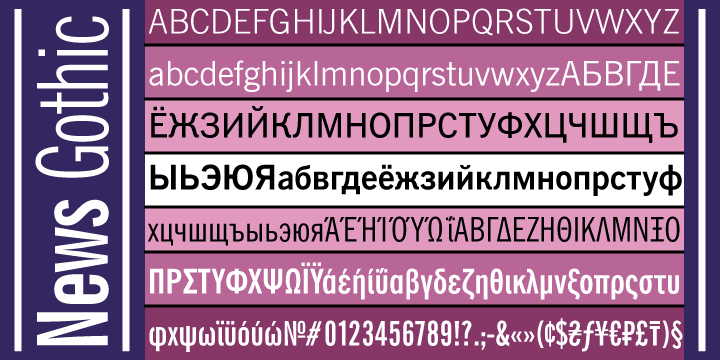
The main digital type foundry in Russia. ParaType was established as a font department of ParaGraph International in 1989 in Moscow, Russia. At that time in the Soviet Union, all typeface development was concentrated in a state research institute, Polygraphmash. It had the most complete collection of Cyrillic typefaces, which included revivals of Cyrillic typefaces developed by the Berthold and Lehmann type foundries established at the end of 19th century in St. Petersburg, and artwork from Vadim Lazurski, Galina Bannikova, Nikolay Kudryashov and other masters of type and graphic design of Soviet time. ParaType became the first privately-owned type foundry in many years. A license agreement with Polygraphmash allows ParaType to manufacture and distribute their typefaces. Most of Polygraphmash staff designers soon moved to ParaType. In the beginning of 1998, ParaType was separated from the parent company and inherited typefaces and font software from ParaGraph. The company was directed by Emil Yakupov until February 2014. After Yakupov's death, Irina Petrova took over the reins. Products include FastFont, a simple TrueType builder, ParaNoise, a builder for PostScript fonts with random contours, FontLab, a universal font editor and ScanFont, a font editor with scanning module. Random, customized fonts. Multilingual fonts including, Latin, Cyrillic, Arabic, Greek, Georgian and Hebrew fonts for Macintosh and Windows. Catalog. Designers. Alternate URL. Famous typefaces by Paratype include Academy, Pragmatica, Newton, Courier, Futura, Petersburg, Jakob, Kuenstler 480, ITC Studio Script, ITC Zapf Chancery, Amore CTT (2004, Fridman), Karolla, Inform, Hafiz (Arabic), Kolheti (Georgian), Benzion (Hebrew). The PT Sans (Open Font Library link), PT Serif and PT Mono families (2009-2012) are free. PT stands for Public Type. Another download site. PT Sans, for example, consists of PTSans-Bold, PTSans-BoldItalic, PTSans-Caption, PTSans-CaptionBold, PTSans-Italic, PTSans-Narrow, PTSans-NarrowBold, PTSans-Regular. Other free ParaType fonts include Courier Cyrillic, Pushkin (2005, handwriting font), and a complete font set for Cyrillic. Type designers include Vladimir Yefimov, Tagir Safayev, Lyubov Kuznetsova, Manvel Schmavonyan and Alexander Tarbeev. They give this description of the 370+ library: The Russian constructivist and avant garde movements of the early 20th century inspired many ParaType typefaces, including Rodchenko, Quadrat Grotesk, Ariergard, Unovis, Tauern, Dublon and Stroganov. The ParaType library also includes many excellent book and newspaper typefaces such as Octava, Lazurski, Bannikova, Neva or Petersburg. On the other hand, if you need a pretty typeface to knock your clients dead, meet the ParaType girls: Tatiana, Betina, Hortensia, Irina, Liana, Nataliscript, Nina, Olga and Vesna (also check Zhikharev who is not a girl but still very pretty). ParaType also excels in adding Cyrillic characters to existing Latin typefaces -- if your company is ever going to do business with Eastern Europe, you should make them part of your corporate identity! ParaType created CE and Cyrillic versions of popular typefaces licensed from other foundries, including Bell Gothic, Caslon, English 157, Futura, Original Garamond, Gothic 725, Humanist 531, Kis, Raleigh, and Zapf Elliptical 711. Finally, ParaType offers a handwriting font service out of its office in Saratoga, CA: 120 dollars a shot. View the ParaType typeface library. Another view of the ParaType typeface collection. |